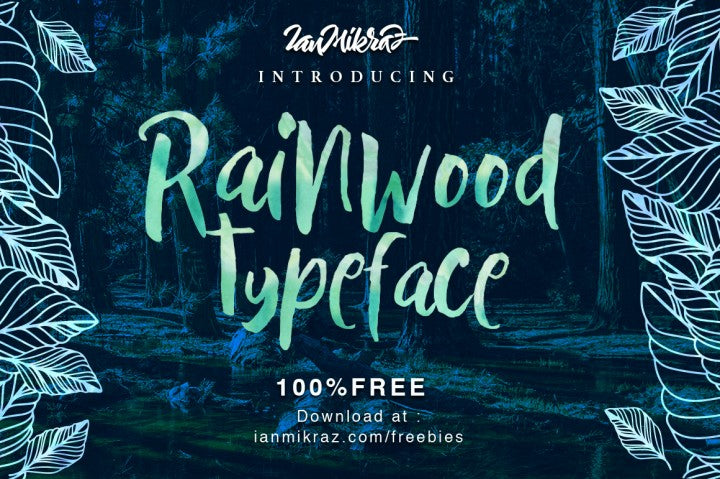
Free Font Rainwood Typeface
Download and enjoy this free font rainwood typeface. Cool typeface to showcase your designs in a modern way. Go give some love to The Hungry JPEG for creating this top-notch typeface. Easily amaze your audience with this fancy font and make your graphic designs pop up from the crowd.